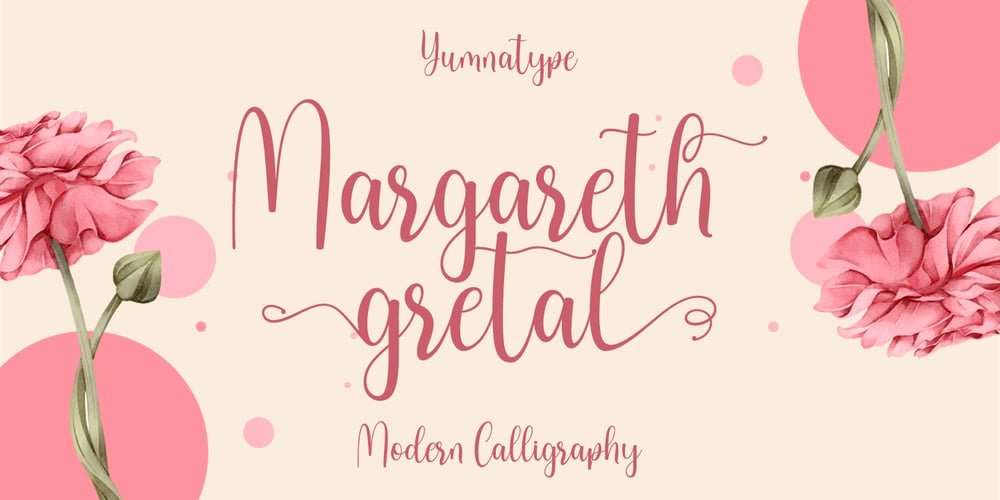
Margareth Gretal Font Family was designed by Ditya Dewi Anandita and published by Yumna Type. Margareth Gretal contains 1 styles and family package options. Margareth Gretal is a beautiful script font with a natural and unique design will make your project more beautiful and powerful. The font is suitable for your branding project and any design.Features: Multilingual Support PUA encoded 11 Alternates 52 Swashes